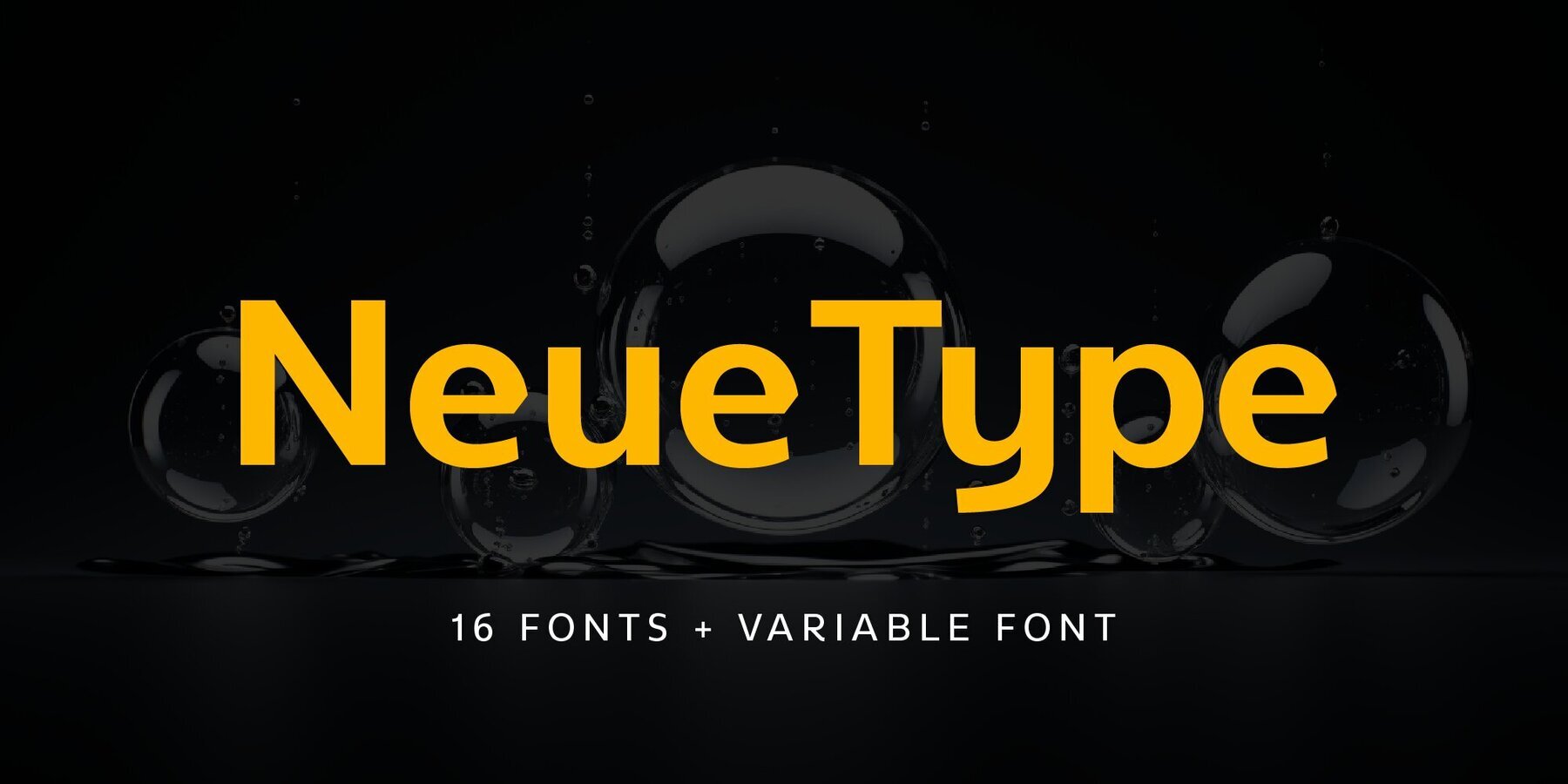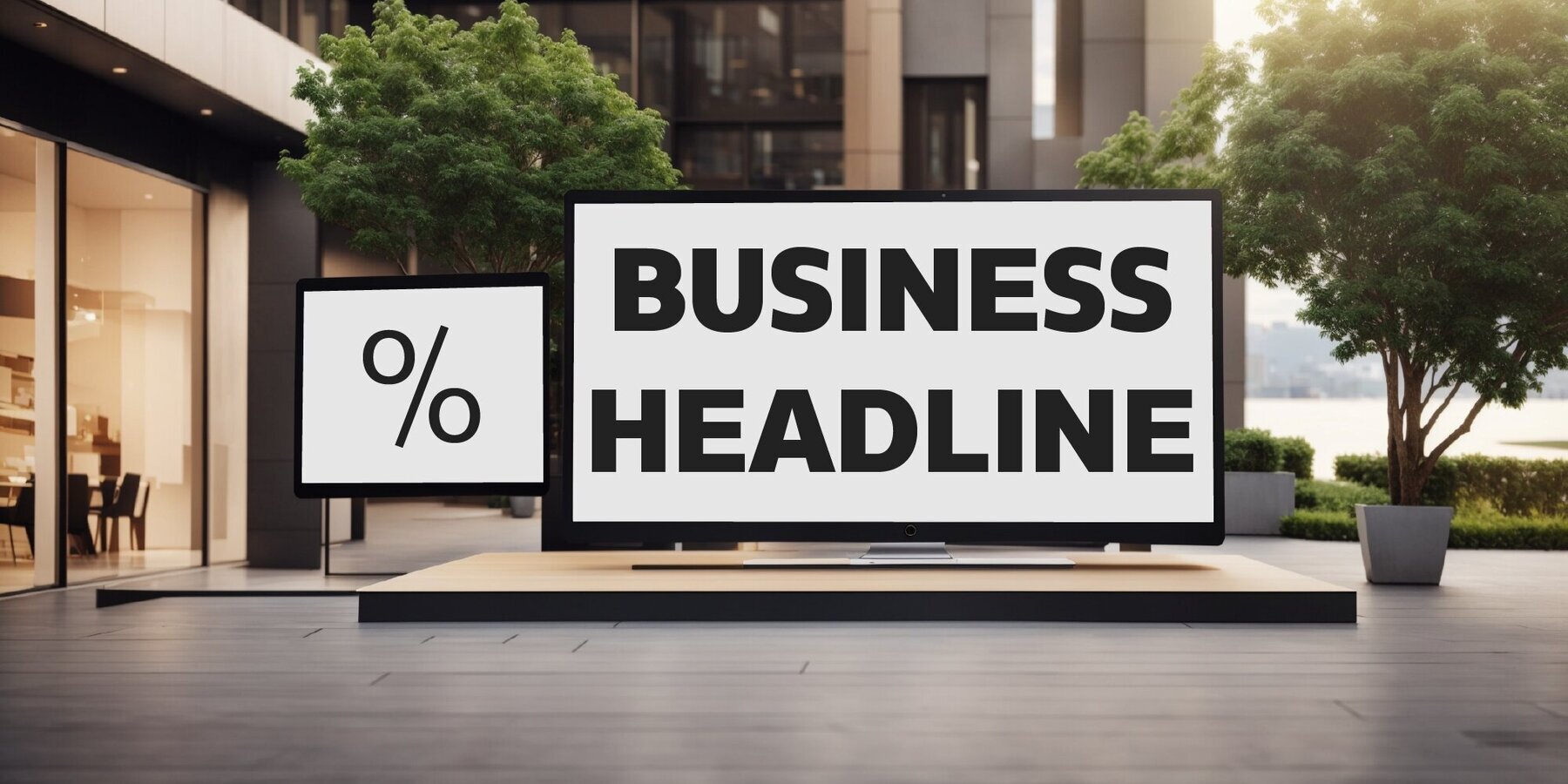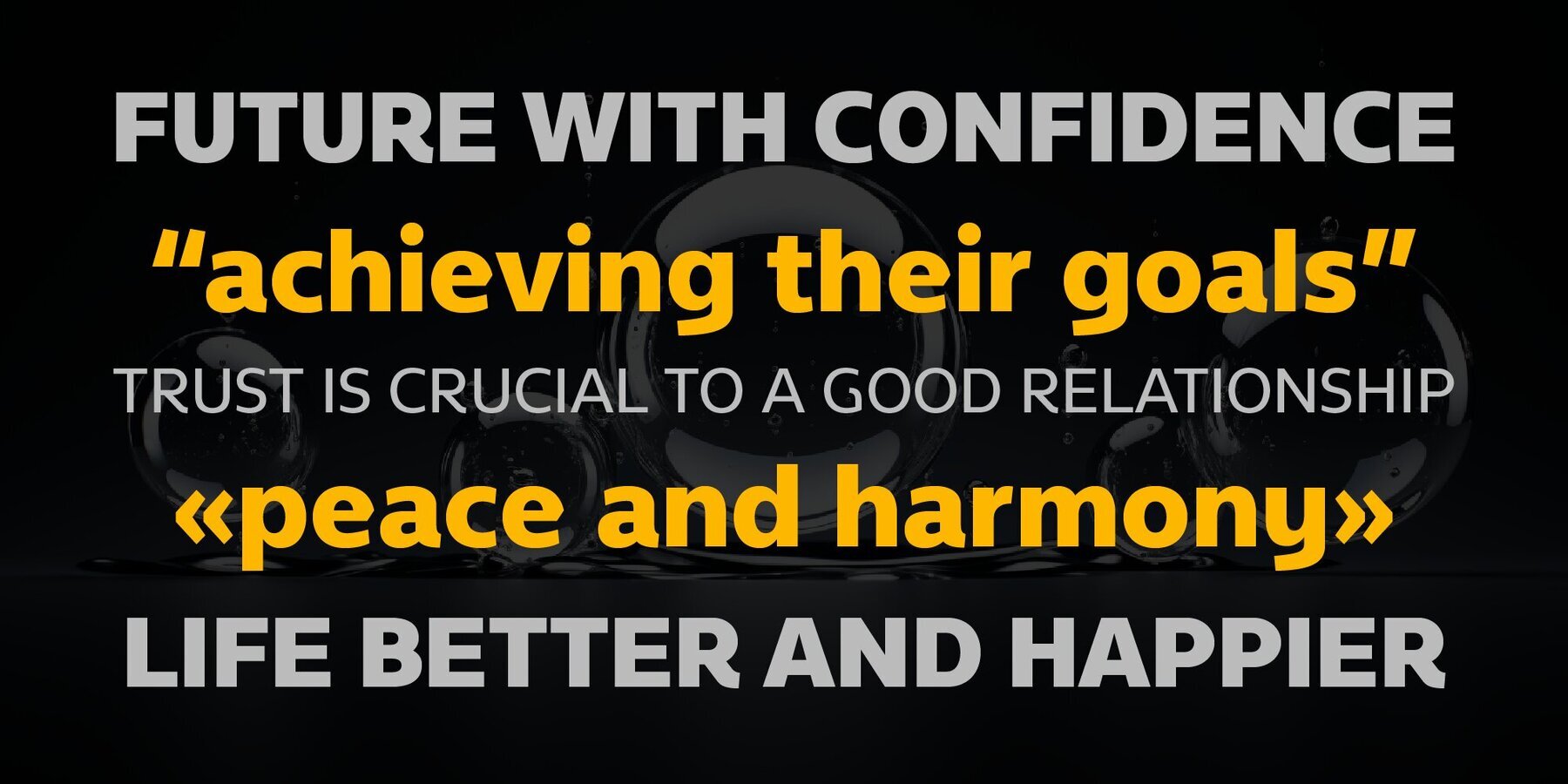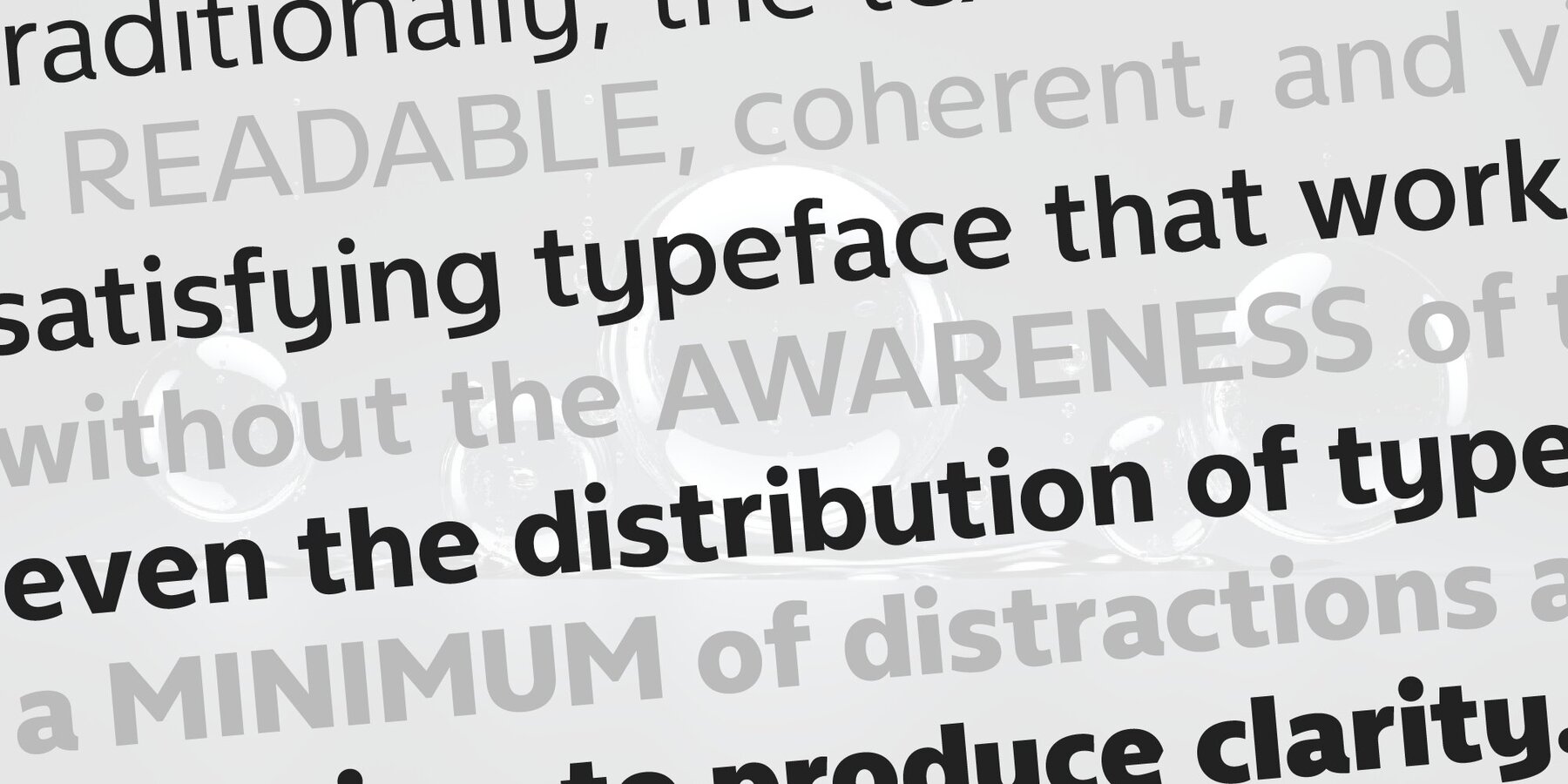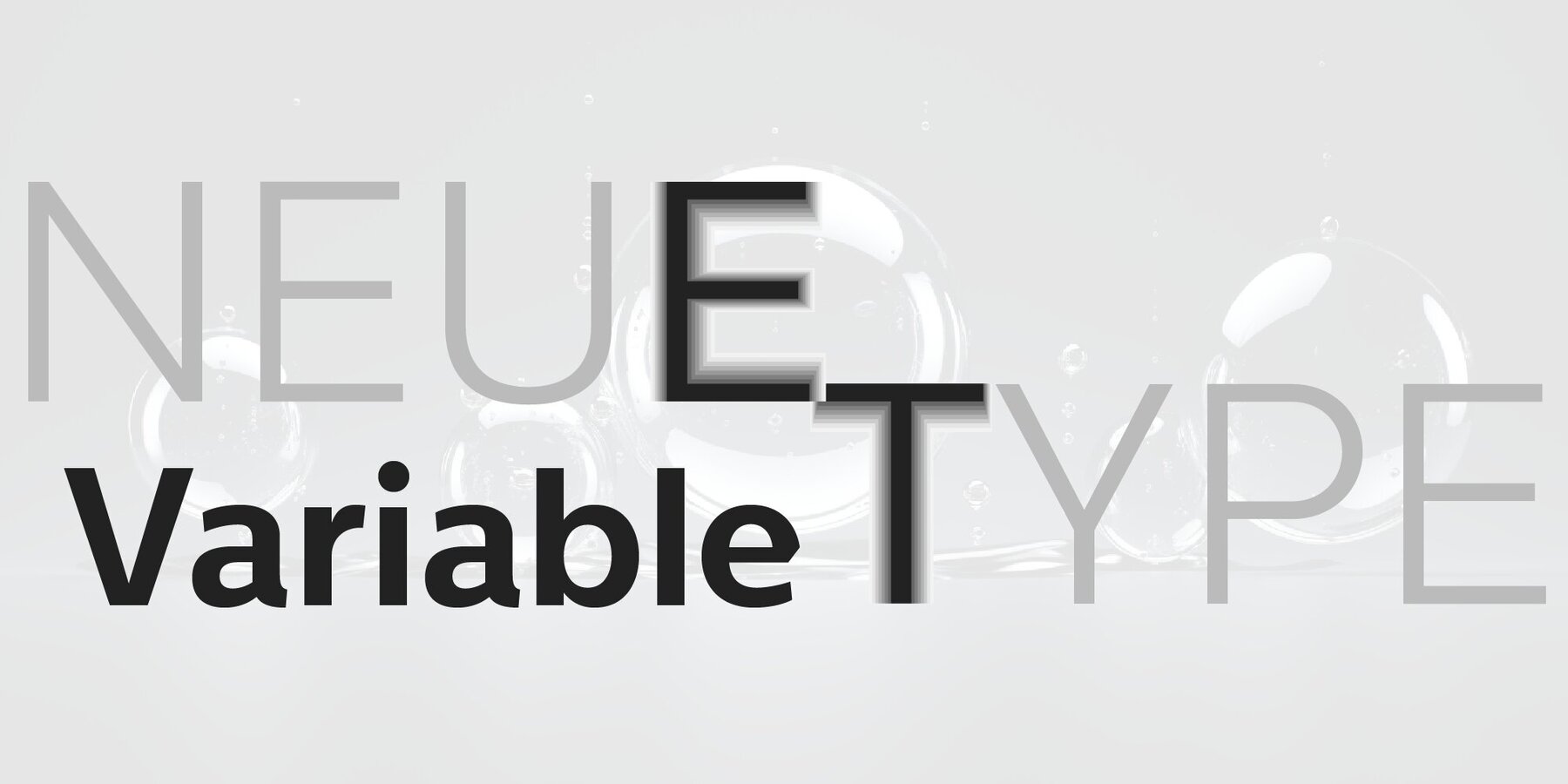
NeueType Font
NeueType is a modern sans serif font family. This family is ideally suited for web and print use. It comes in 16 weights, 8 uprights, matching Italics, and Variable font. Each weight includes 549 glyphs and 22 OpenType features (including Ligatures, Case Sensitive Forms, Tabular Figures, and Typographic Variants).
Savchuk Mykola began his career as a graphic designer. Over time, he had a desire to create a font that would reflect his view of typography. ‘They say that all ingenious things are simple, although unique. In my future projects, I want to reflect simplicity on the one hand and uniqueness on the other, providi...